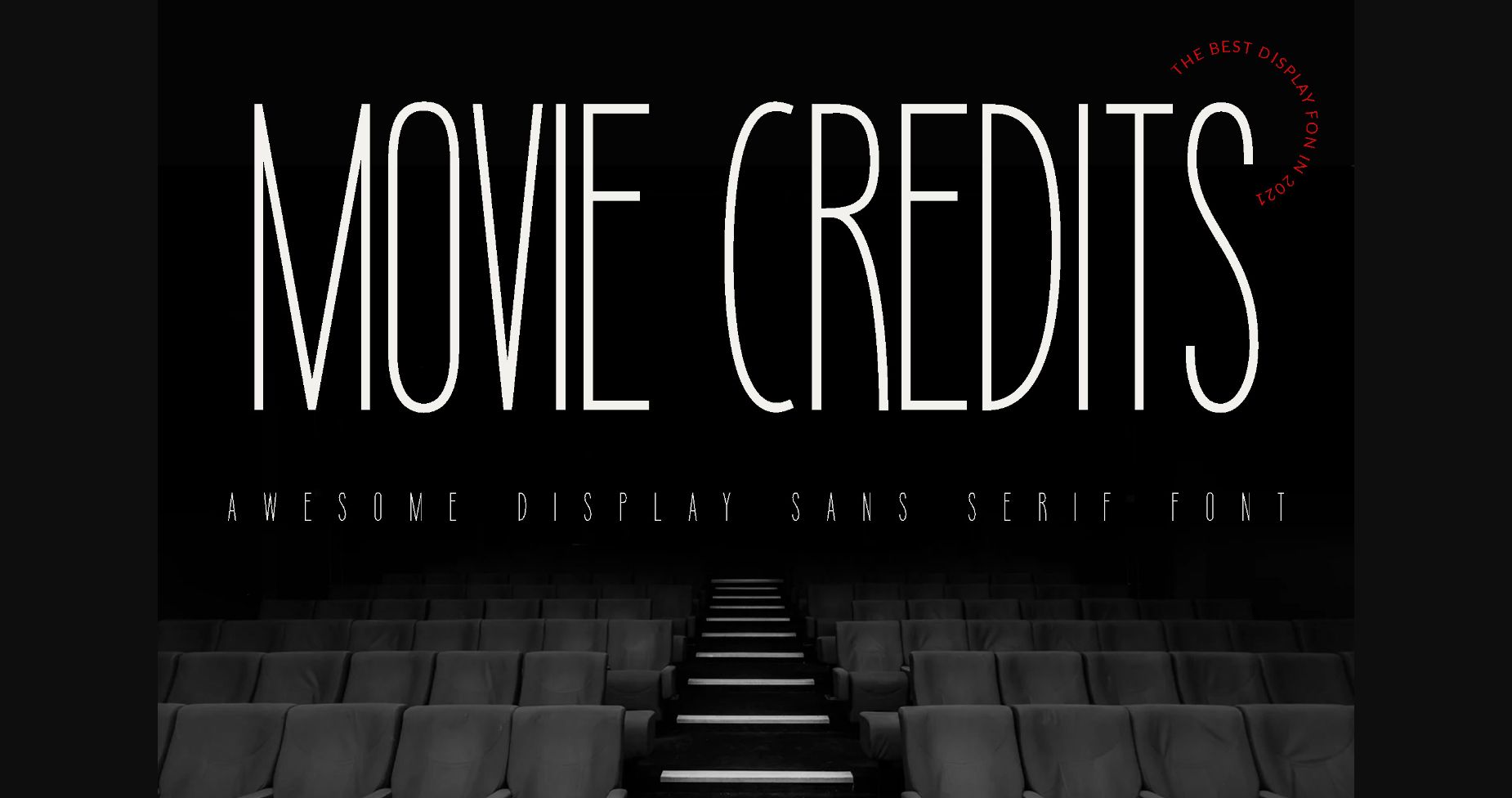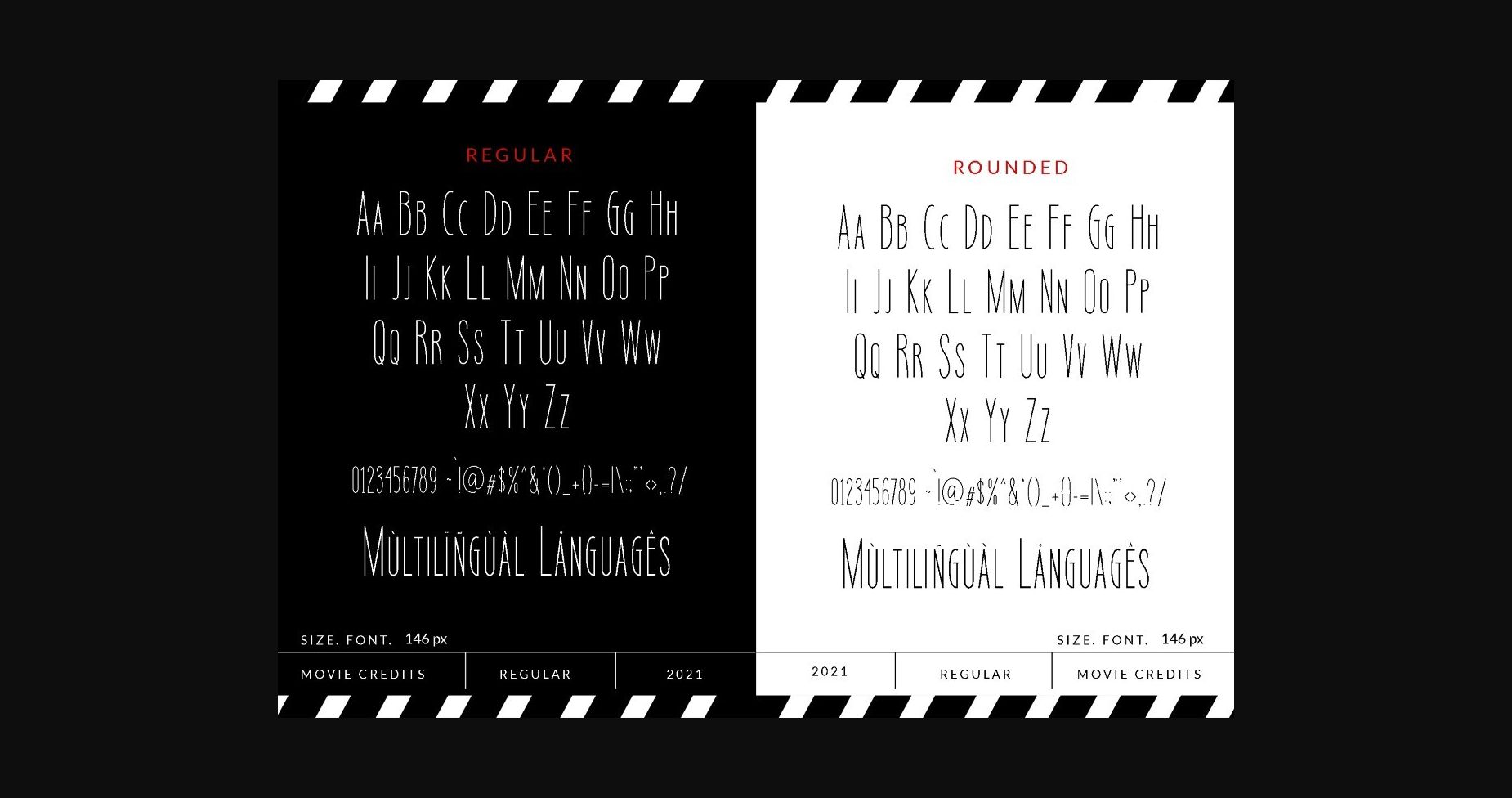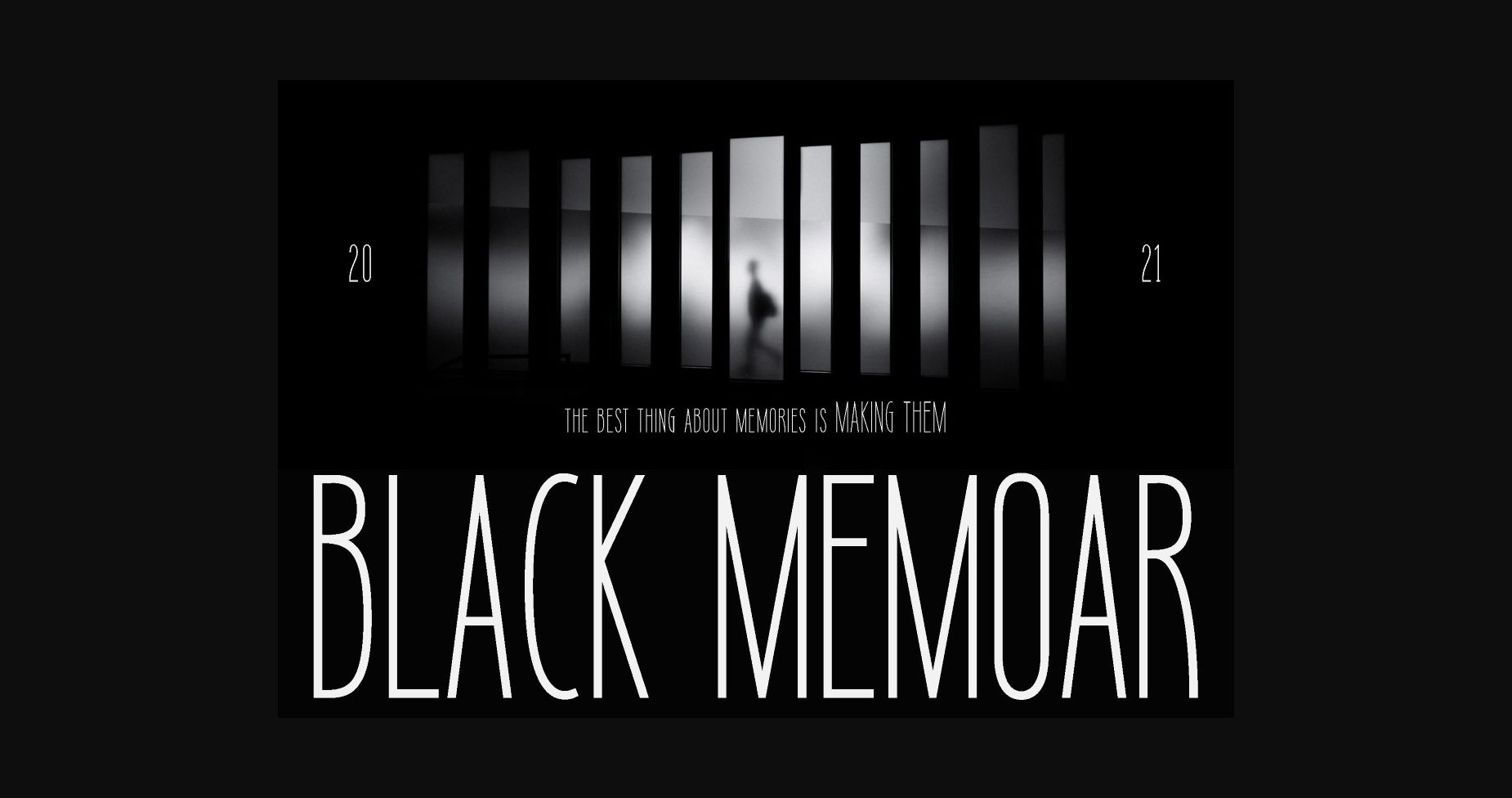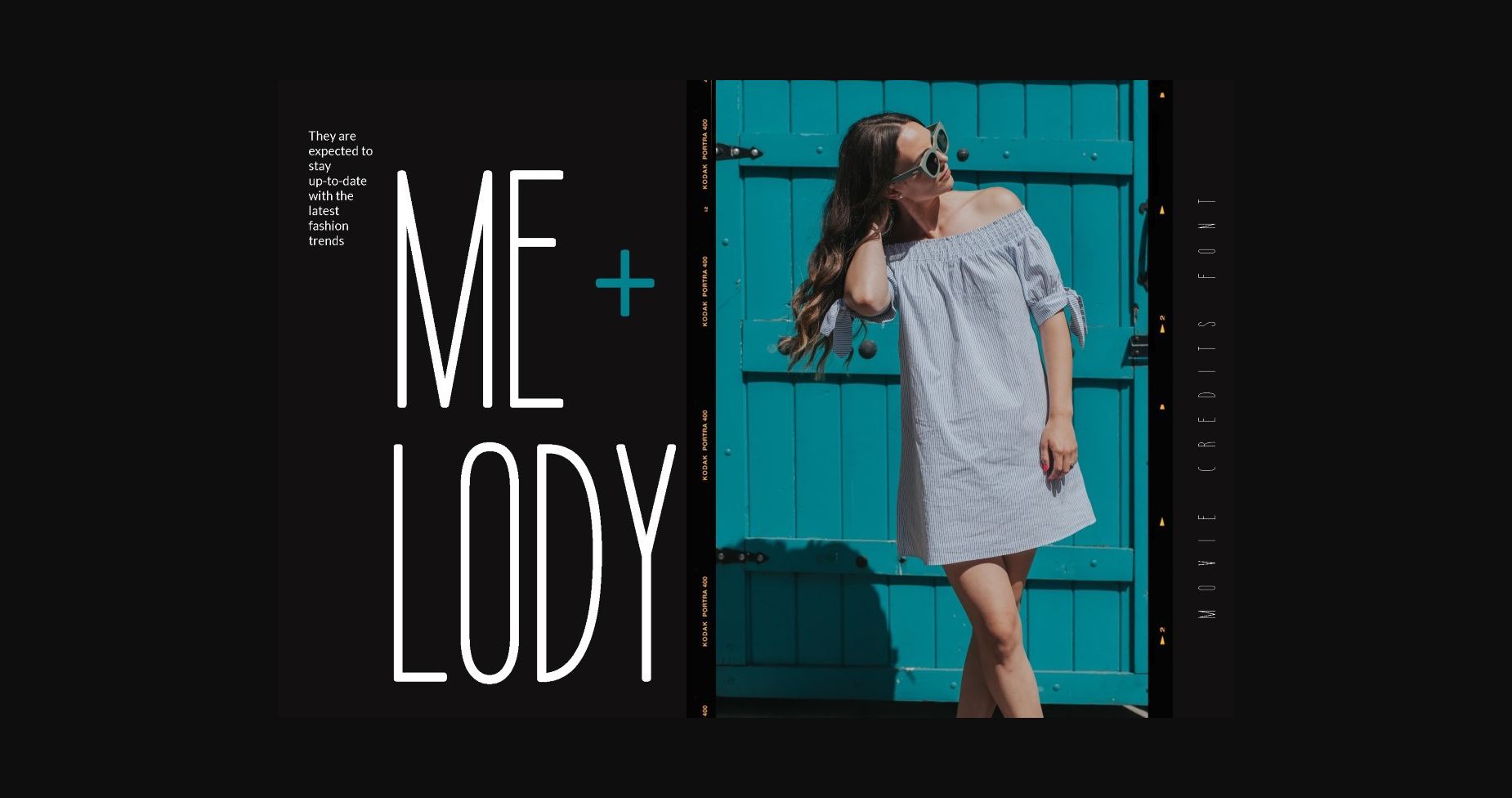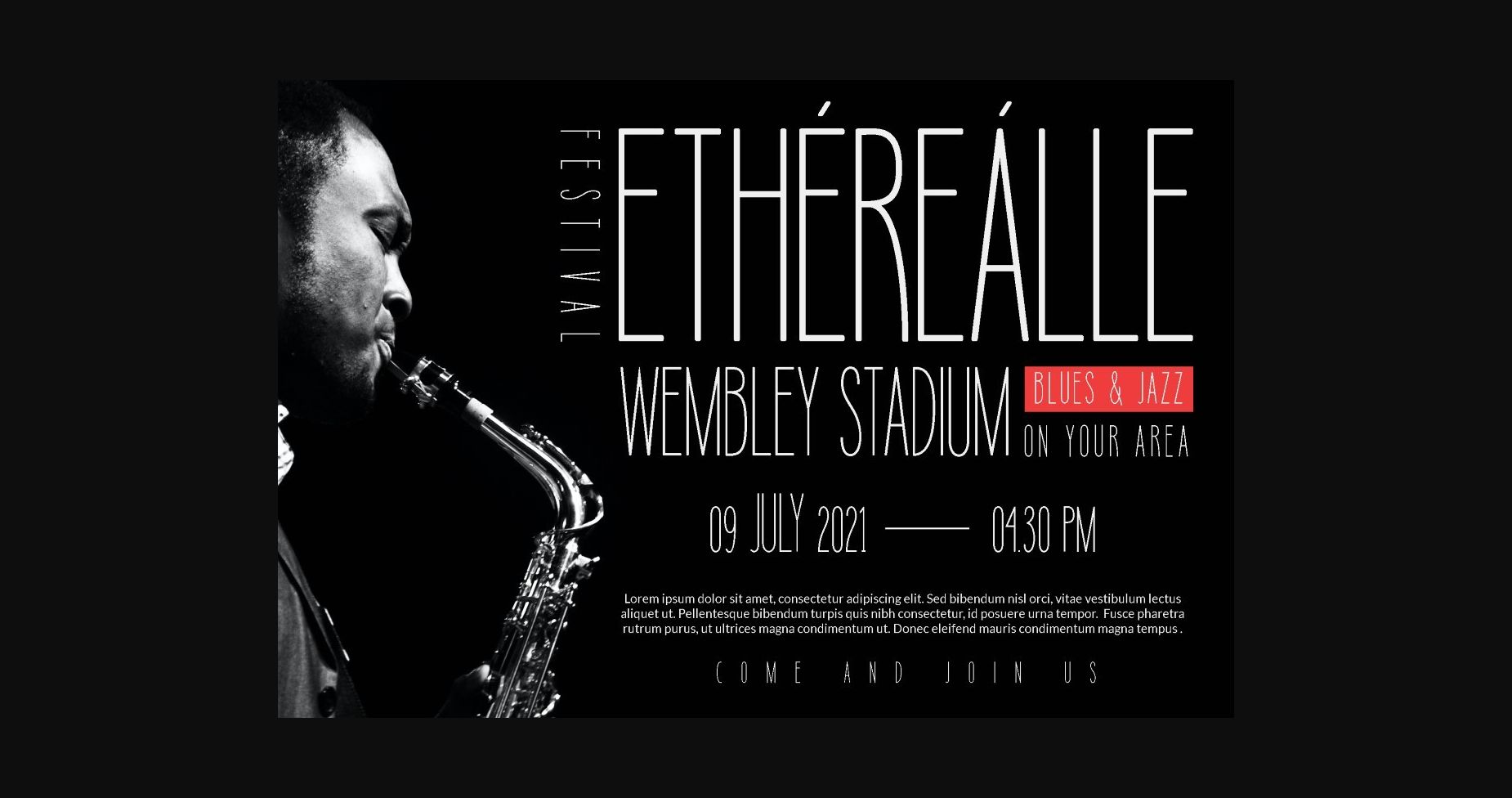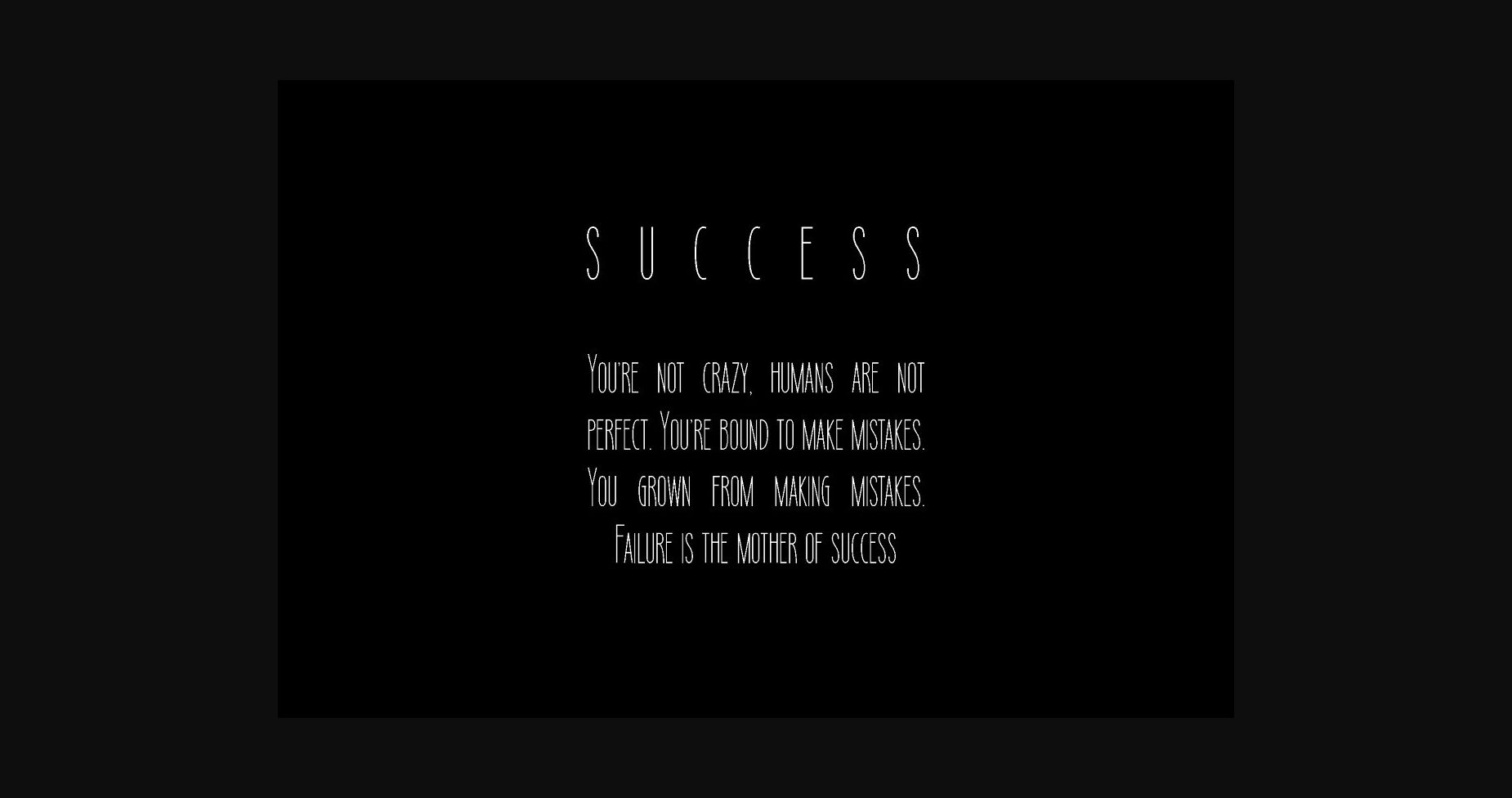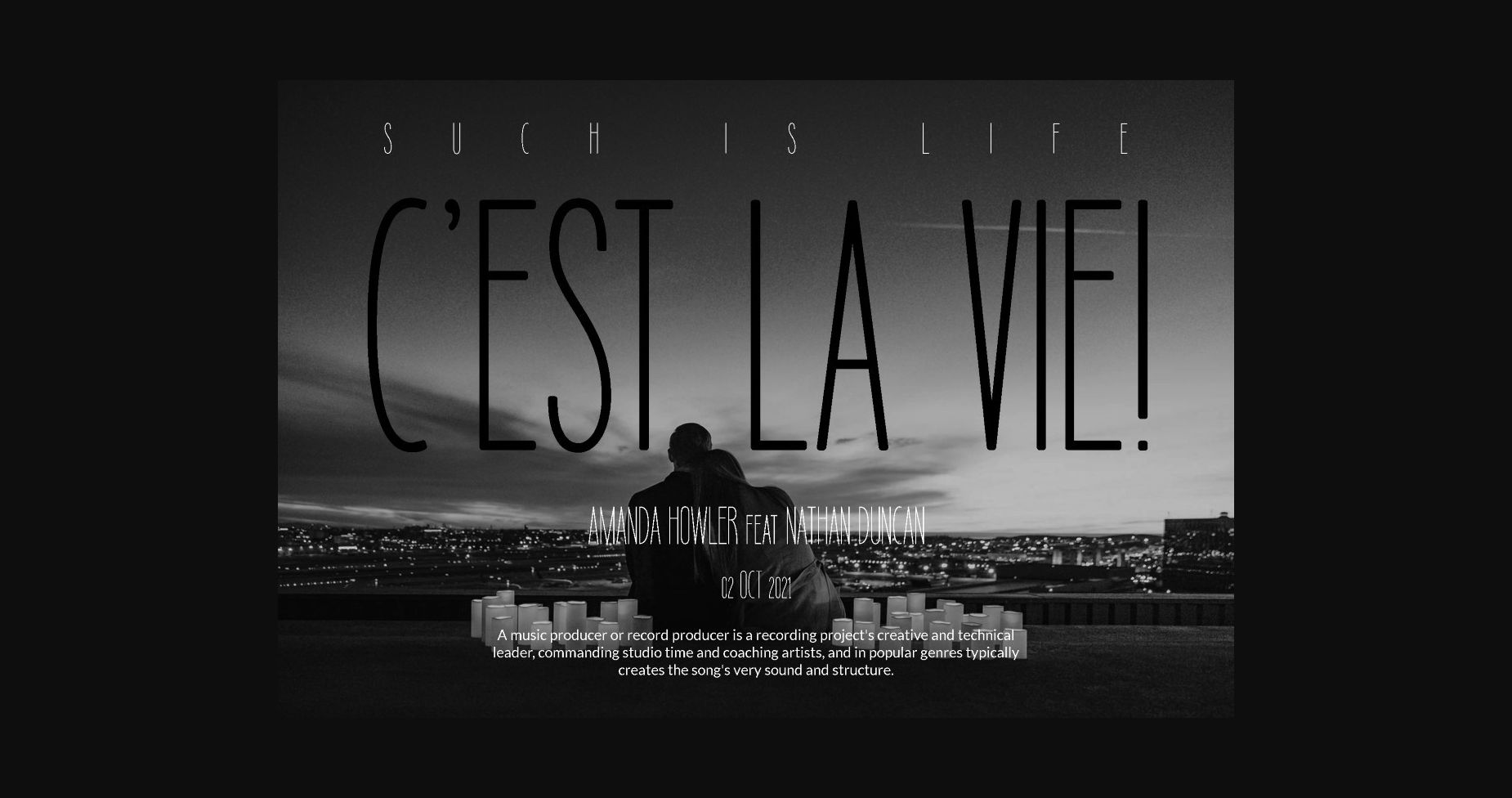
Movie Credits Font
About Movie Credits Font
Movie Credits is a minimal and neat sans serif font. It can easily be matched to an incredibly large set of projects, so add it to your creative ideas and notice how it makes them stand out!